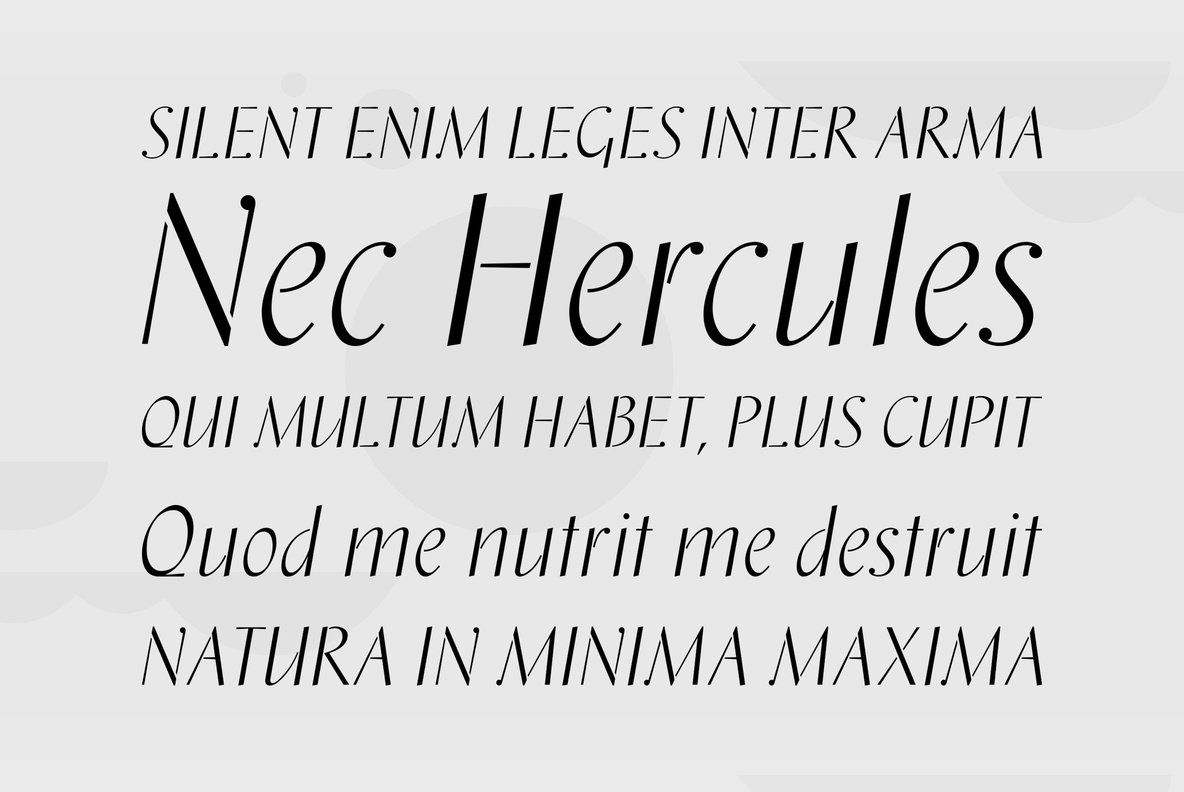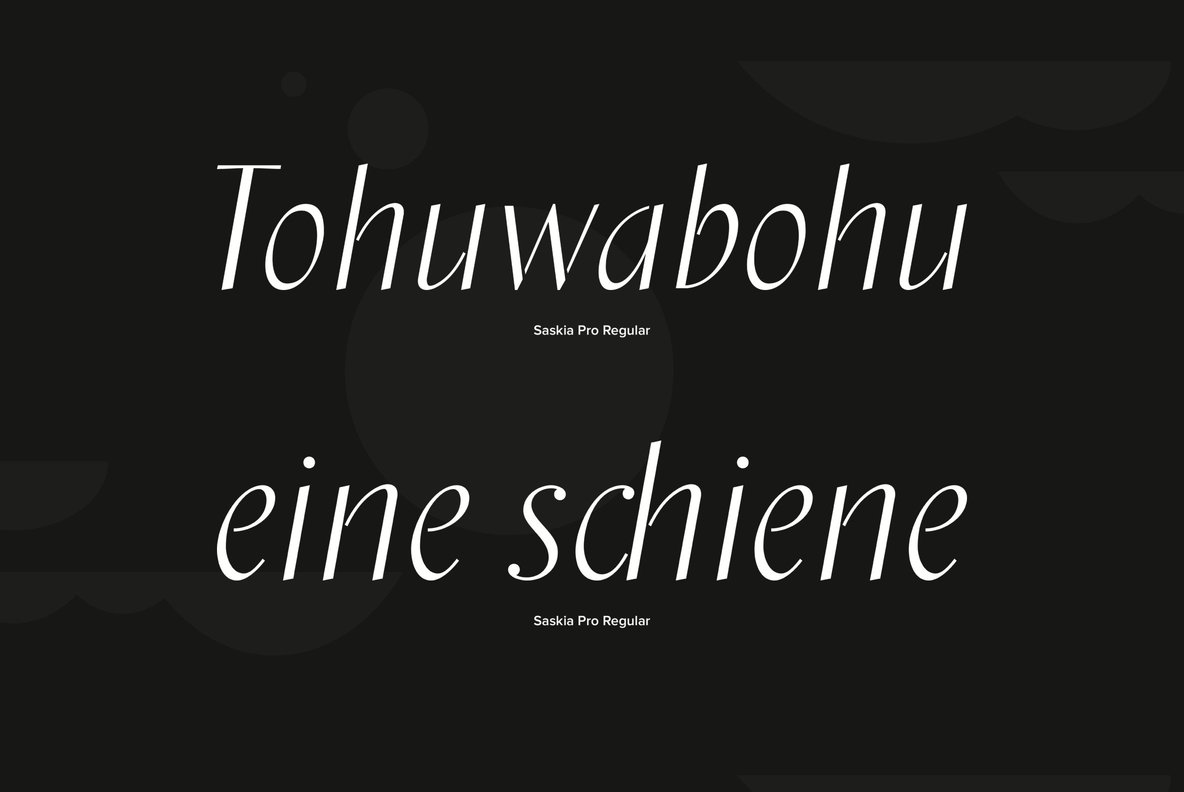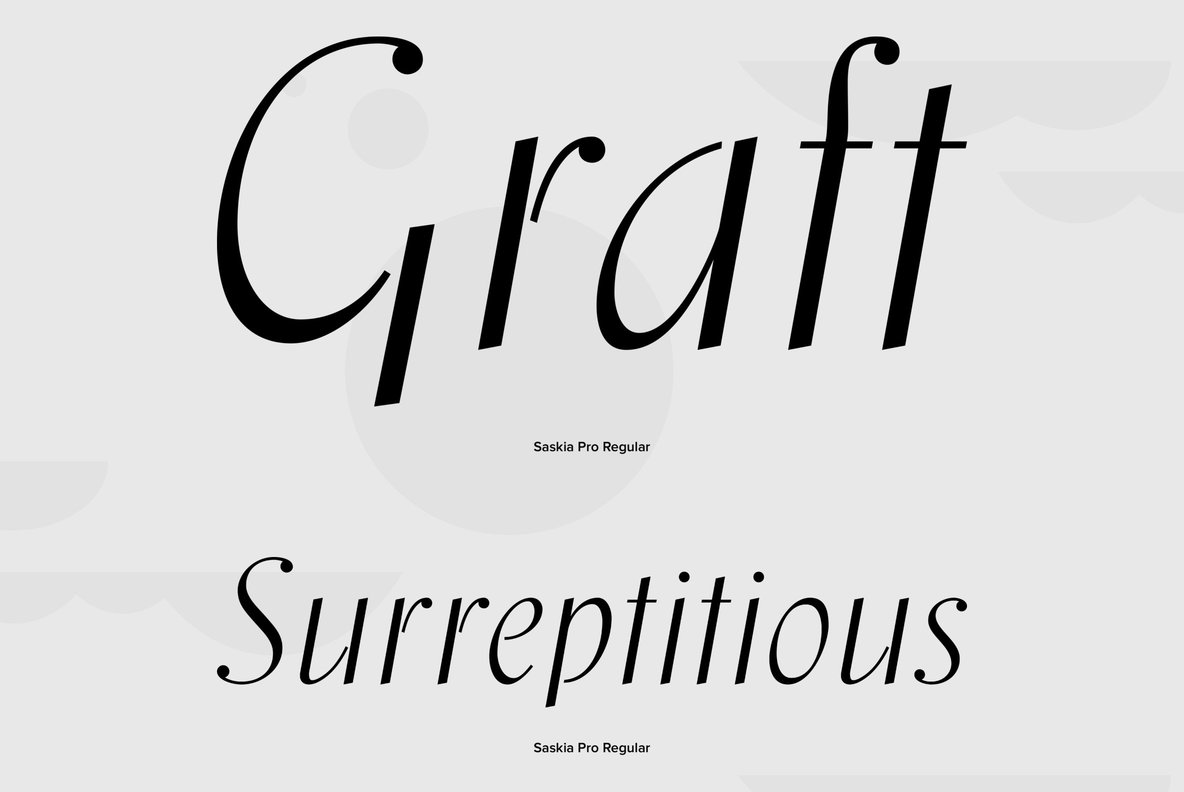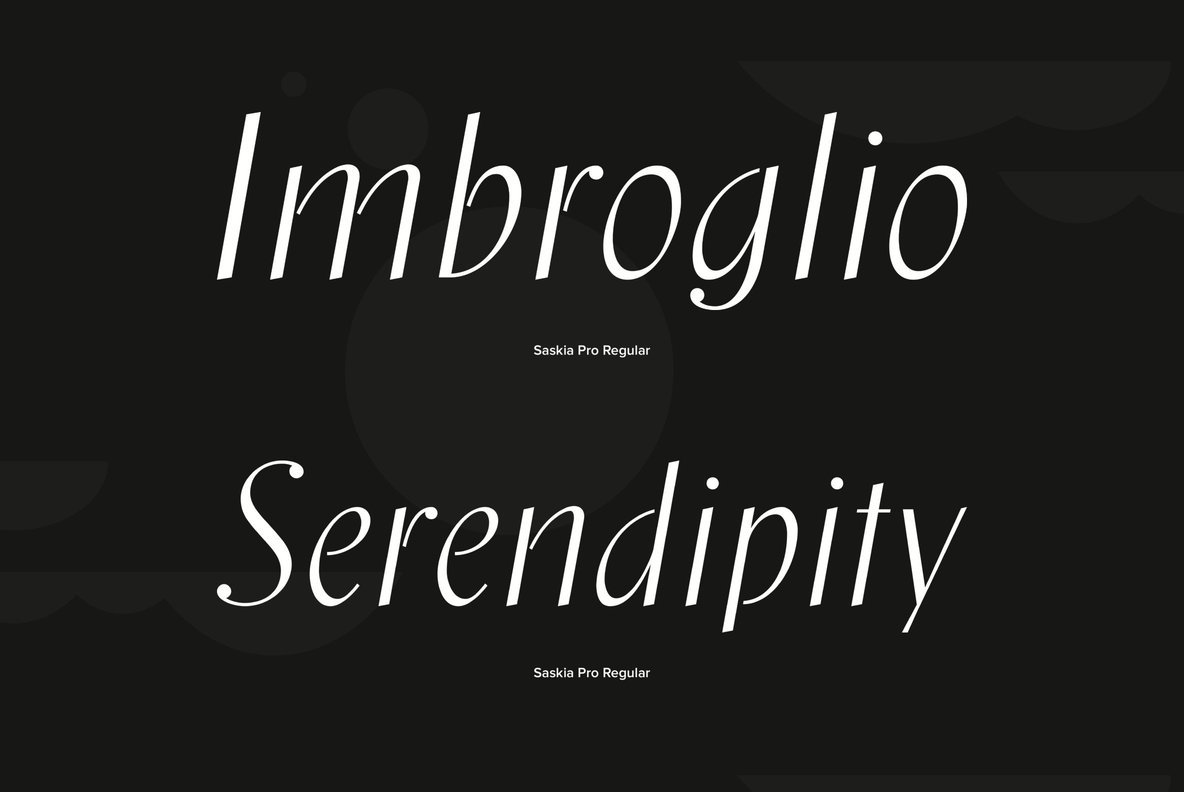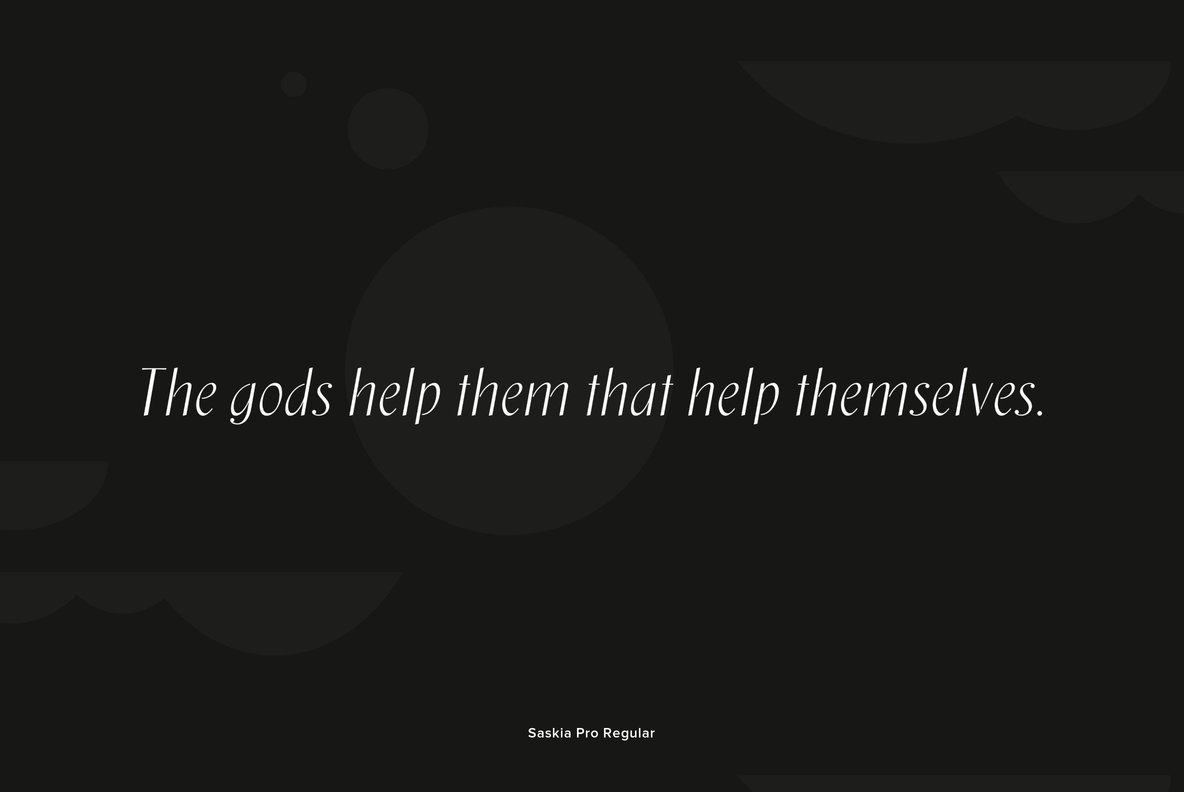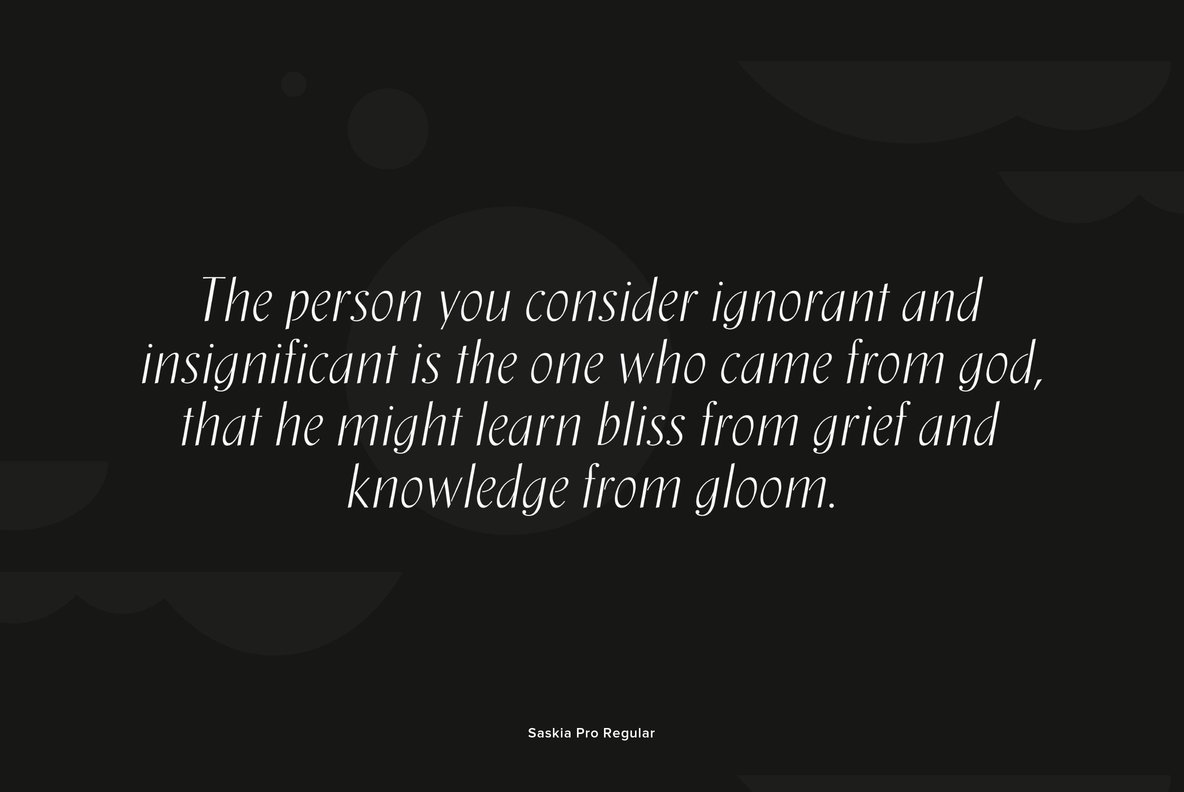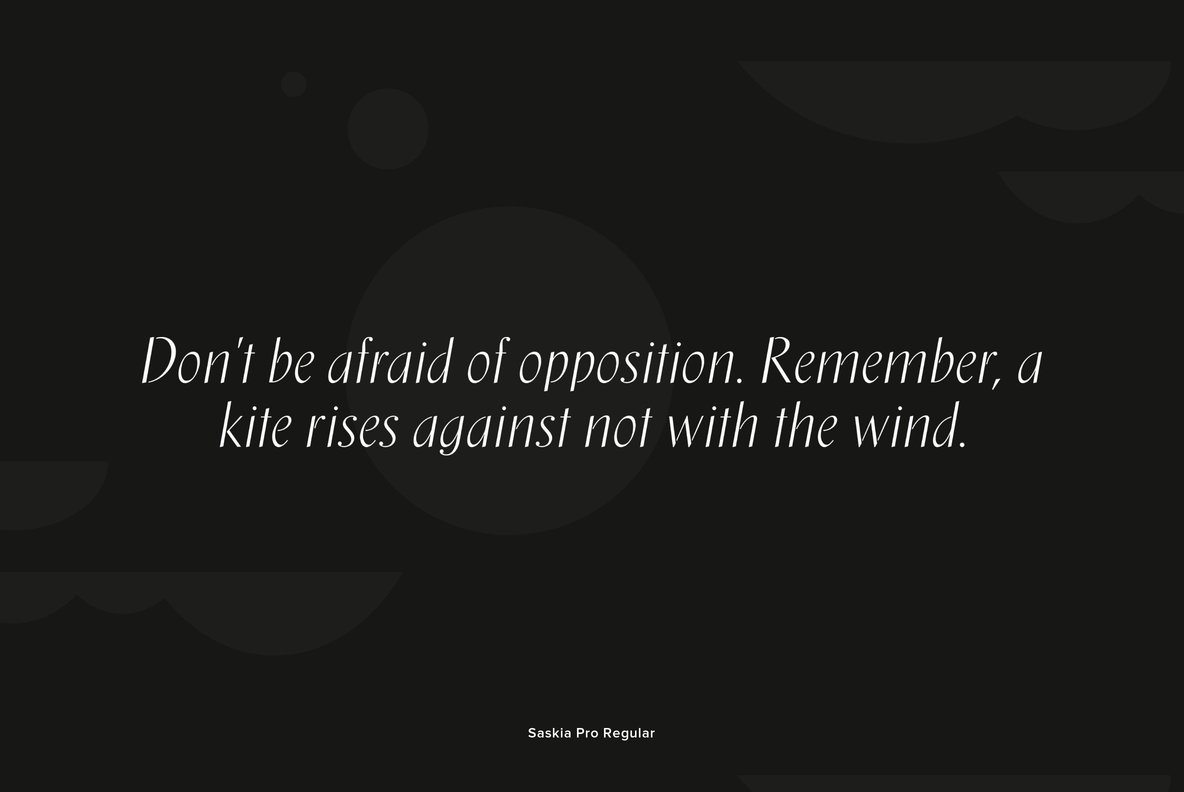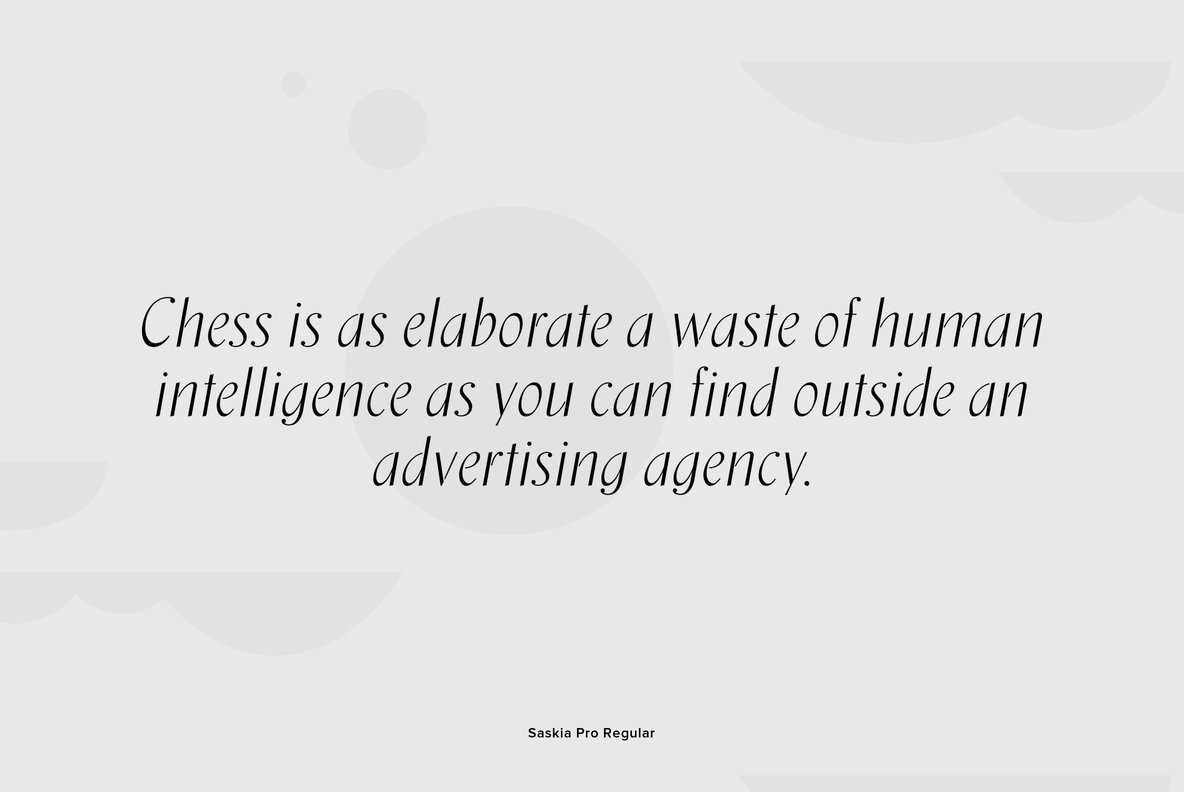
Saskia Pro Font
Saskia Pro Regular
A tribute to Jan Tschichold. His hot-metal font Saskia was released in 1931 by Schelter & Giesecke. This elegant italic font was finally redrawn, extended and digitized for present-day use.